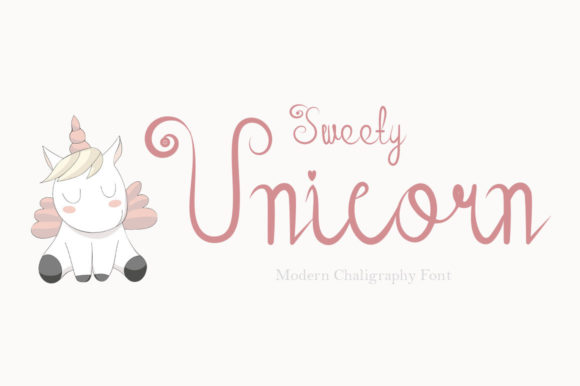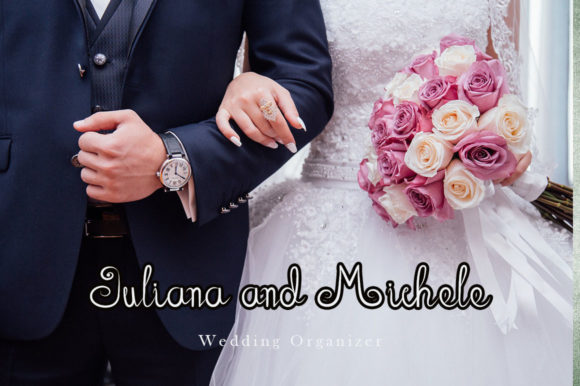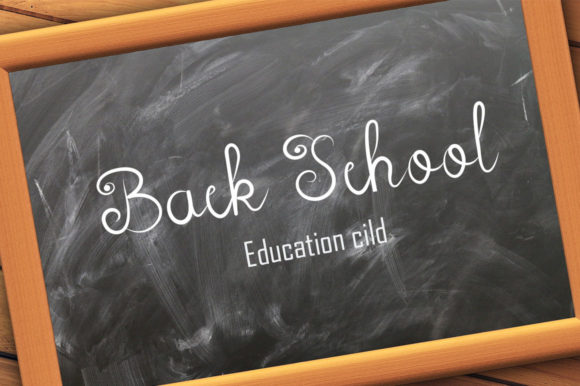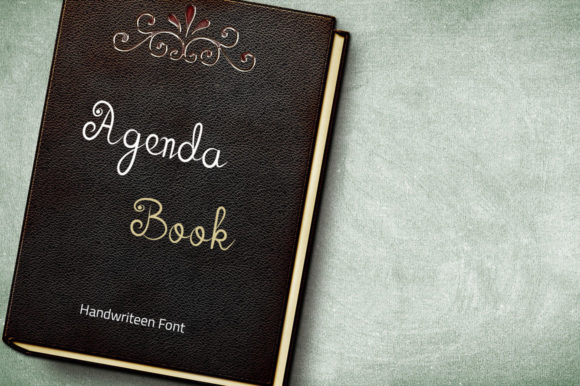
Sweety Unicorn Font
About Sweety Unicorn Font
Sweety Unicorn is a chic, refined script font that emanates sophistication and elegance. Its stylish alternates and ligatures make this font the perfect match for any project.